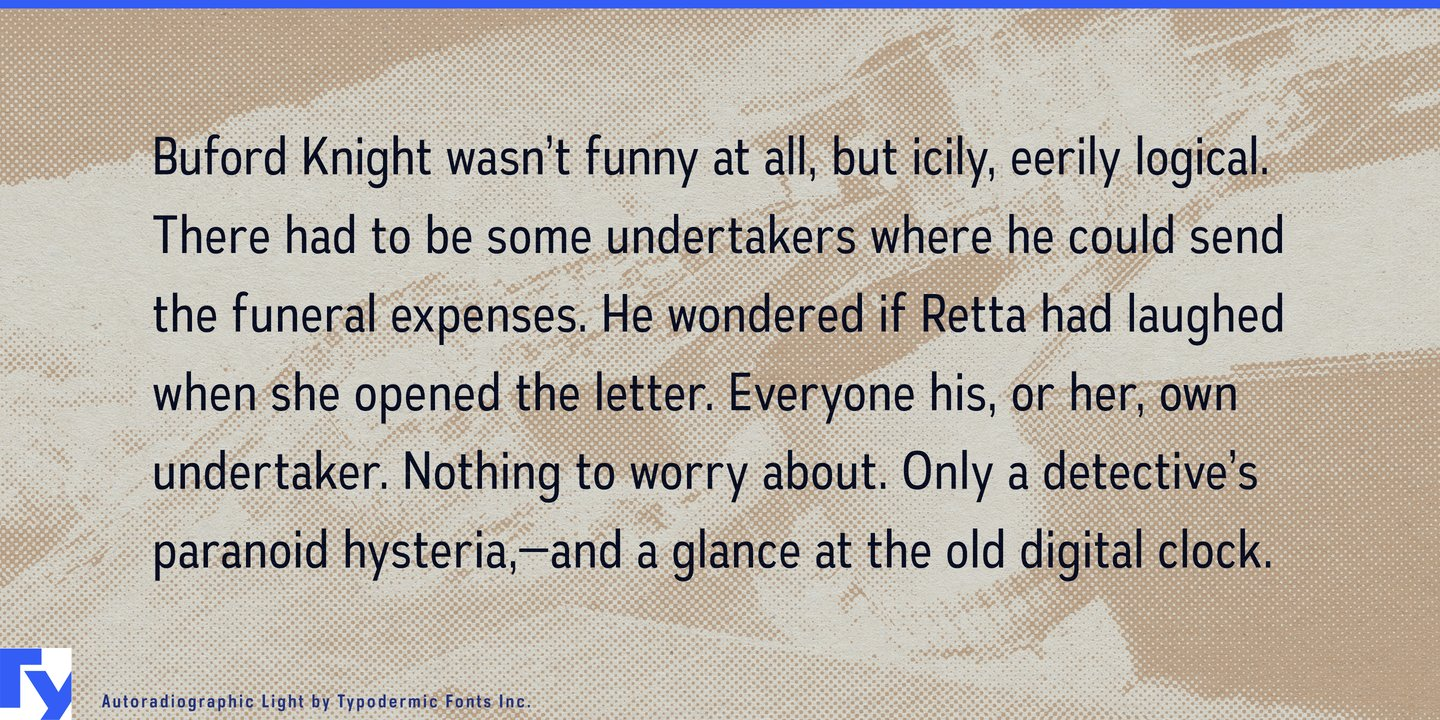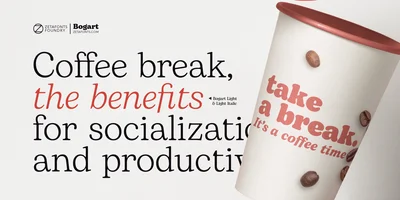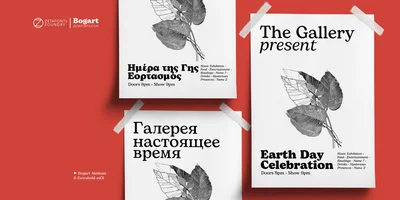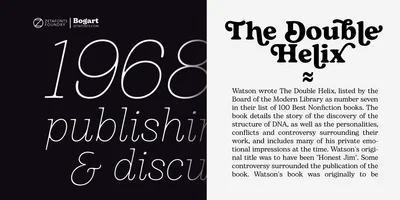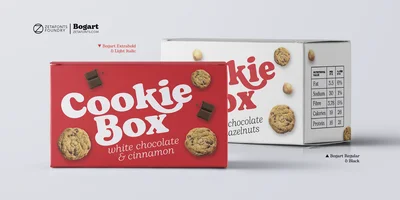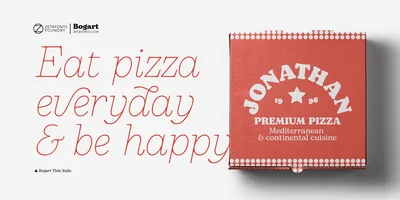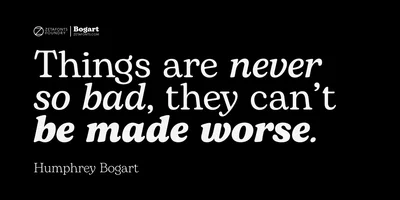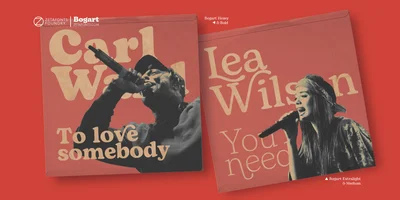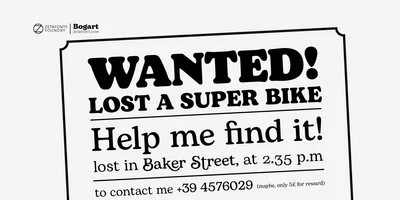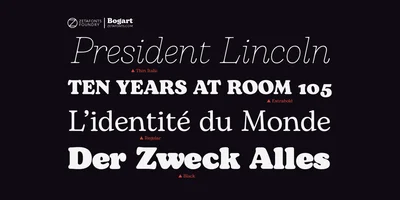
Autoradiographic vs Bogart
Autoradiographic and Bogart are both display typefaces sharing a retro foundation. Where Autoradiographic leans bold, condensed, Bogart brings display. Compare which suits your Branding project.
Design overlap:40%
| Feature | Autoradiographic | Bogart |
| Classification | display | display |
| Language Support | latin, latin-extended, cyrillic | latin, latin-extended, cyrillic, greek |
Recommended: Autoradiographic
- bold, condensed design character
- Suited for Headlines and Posters
Consider: Bogart
- display design character
- Suited for Display and Packaging